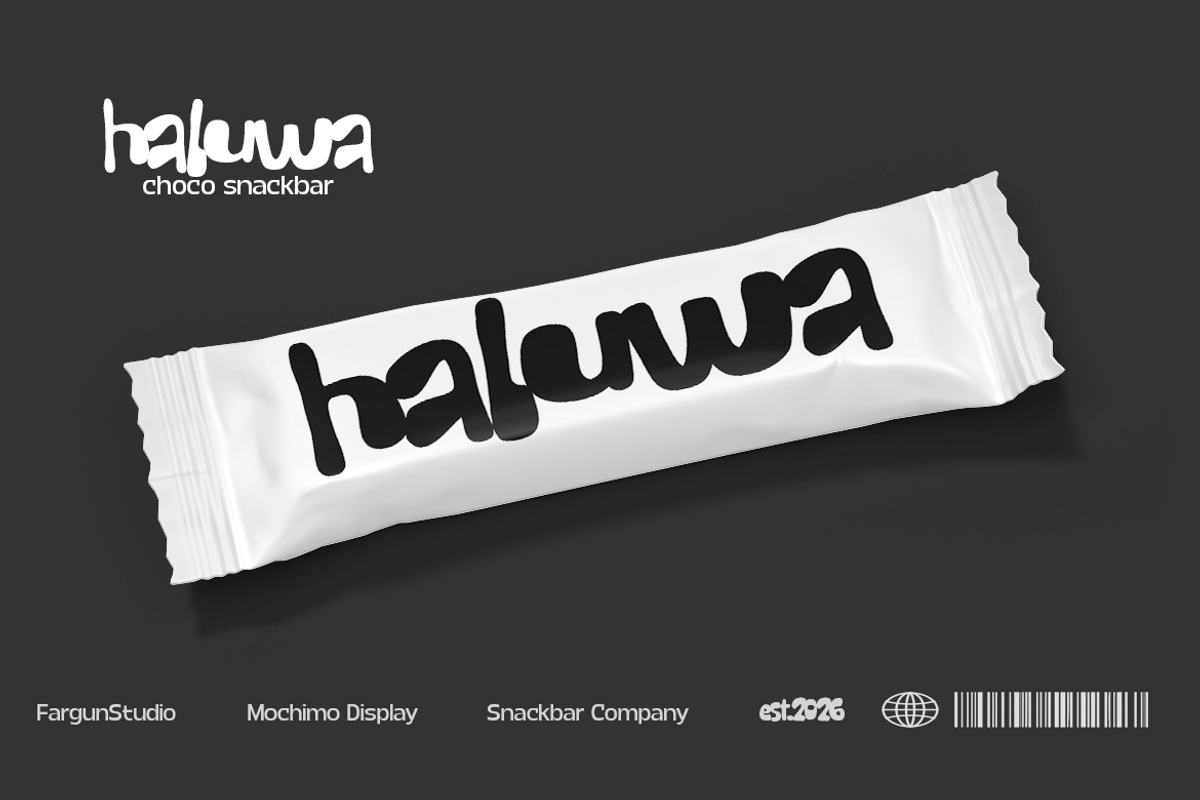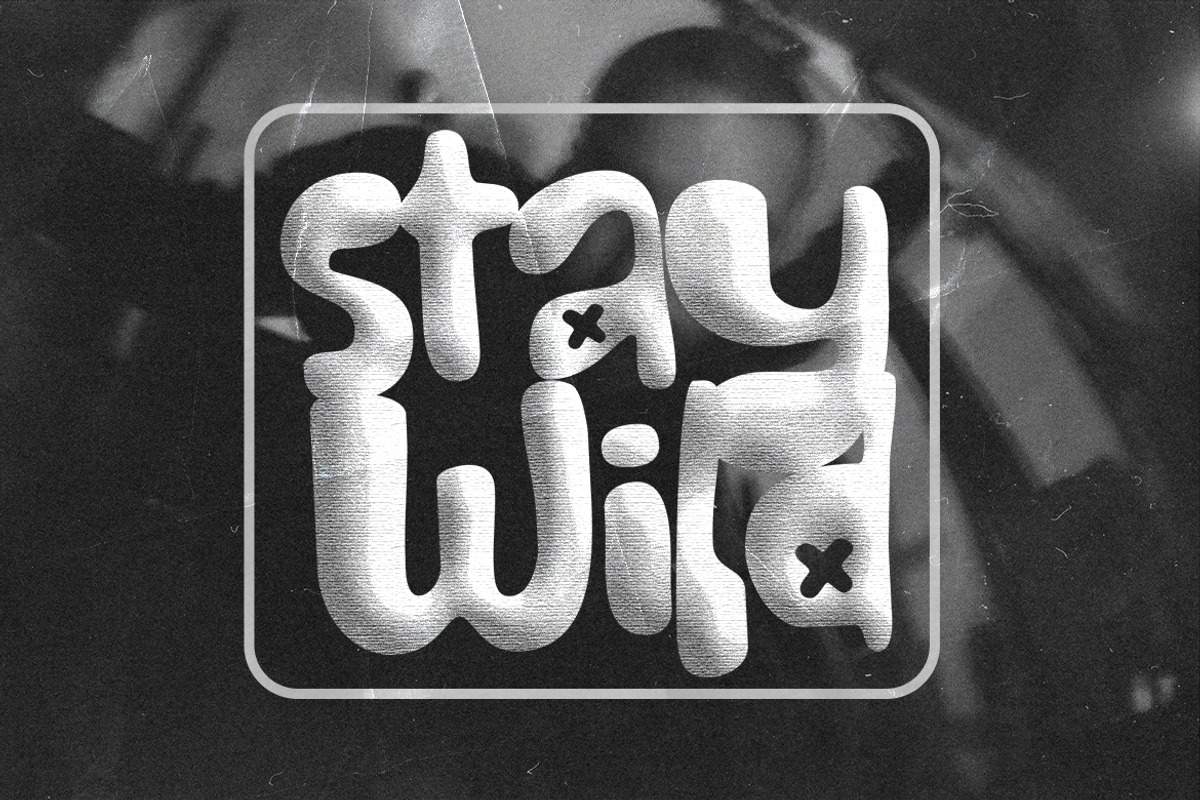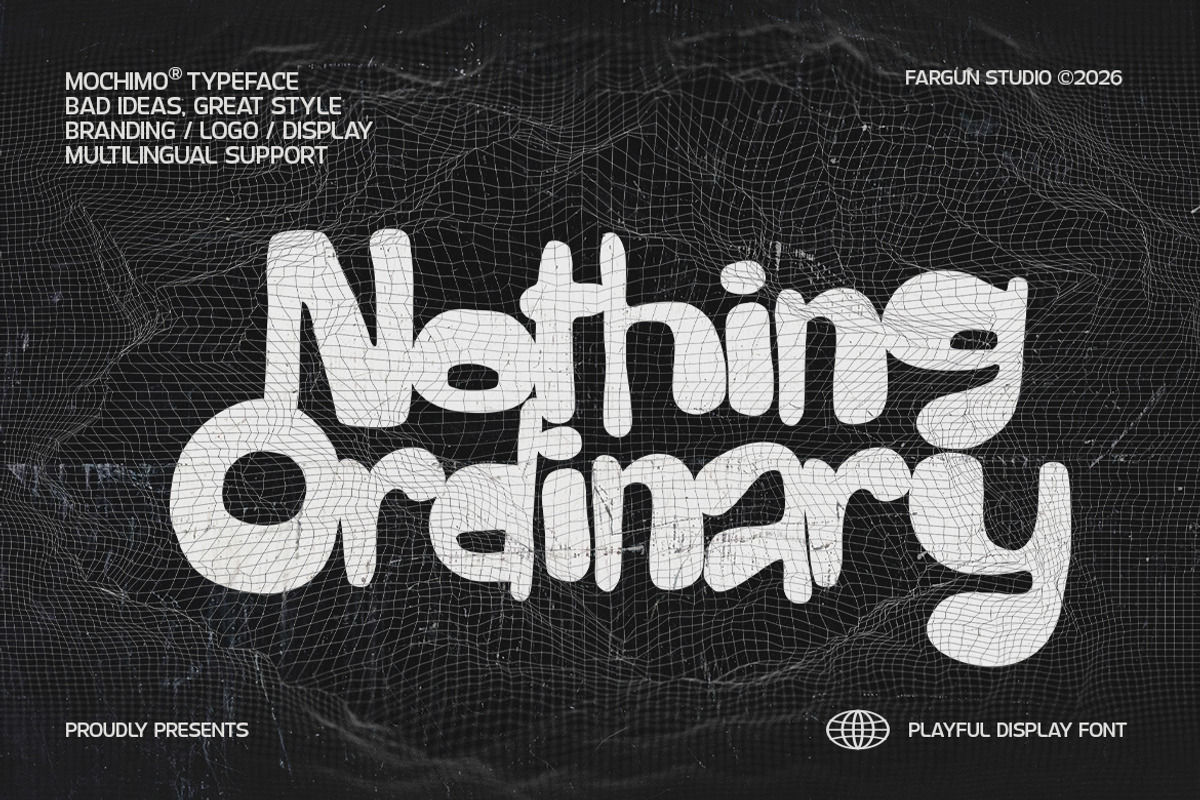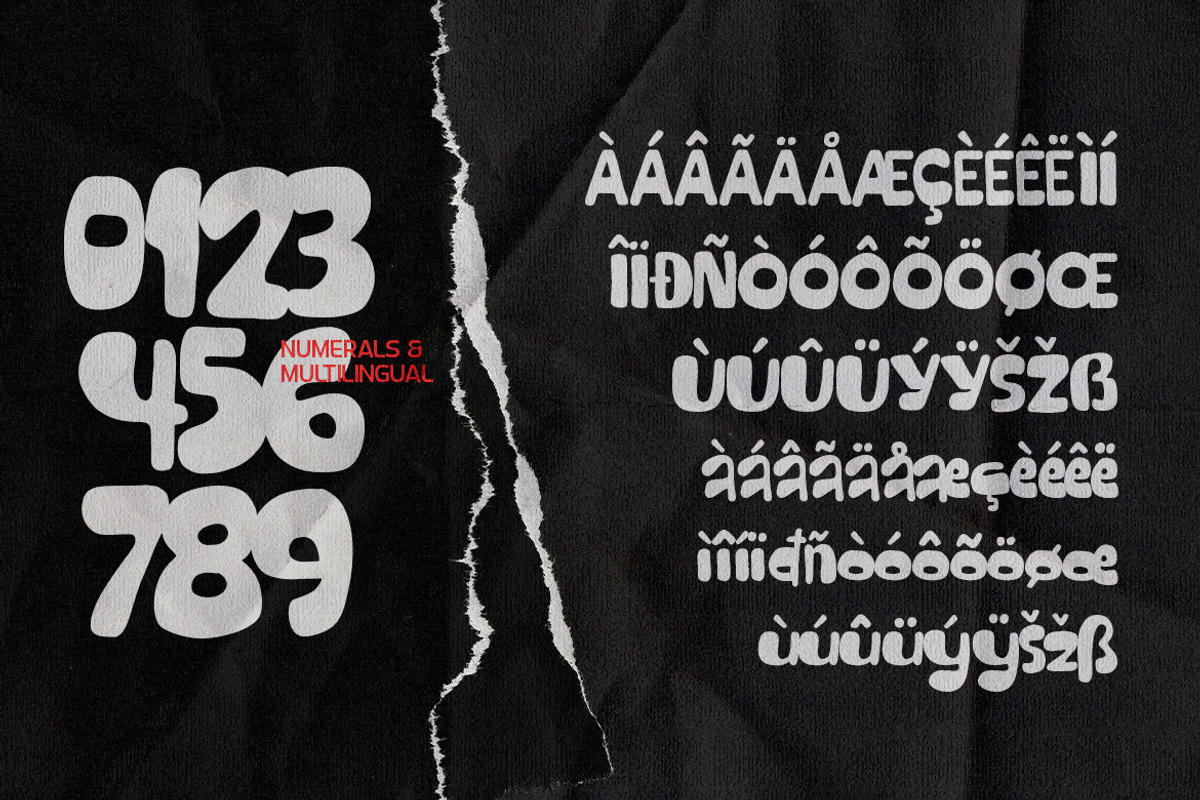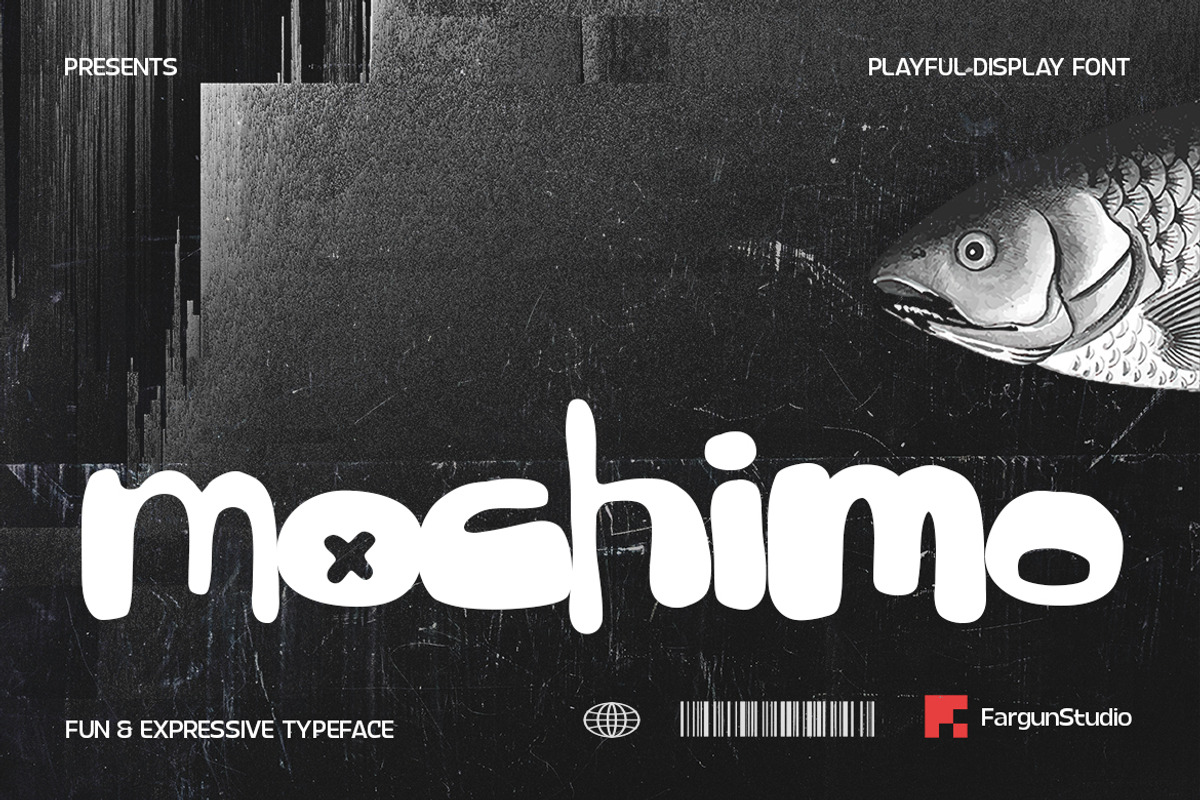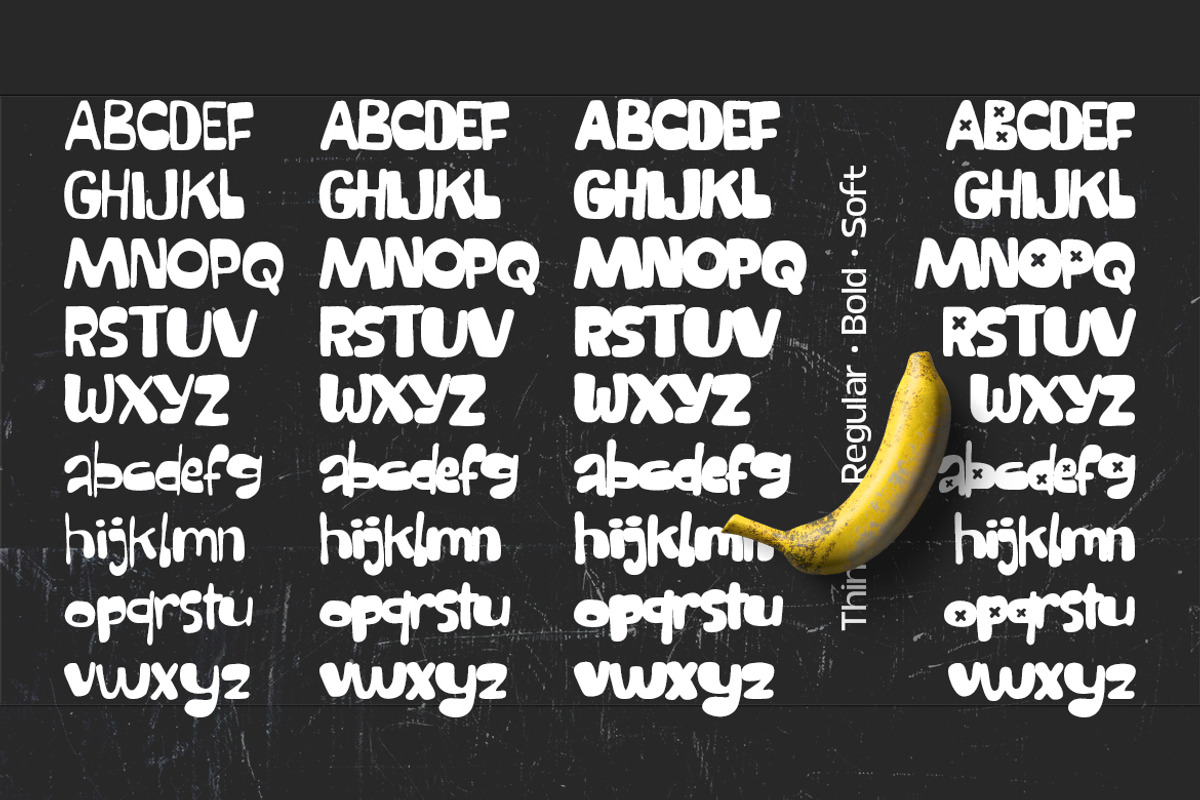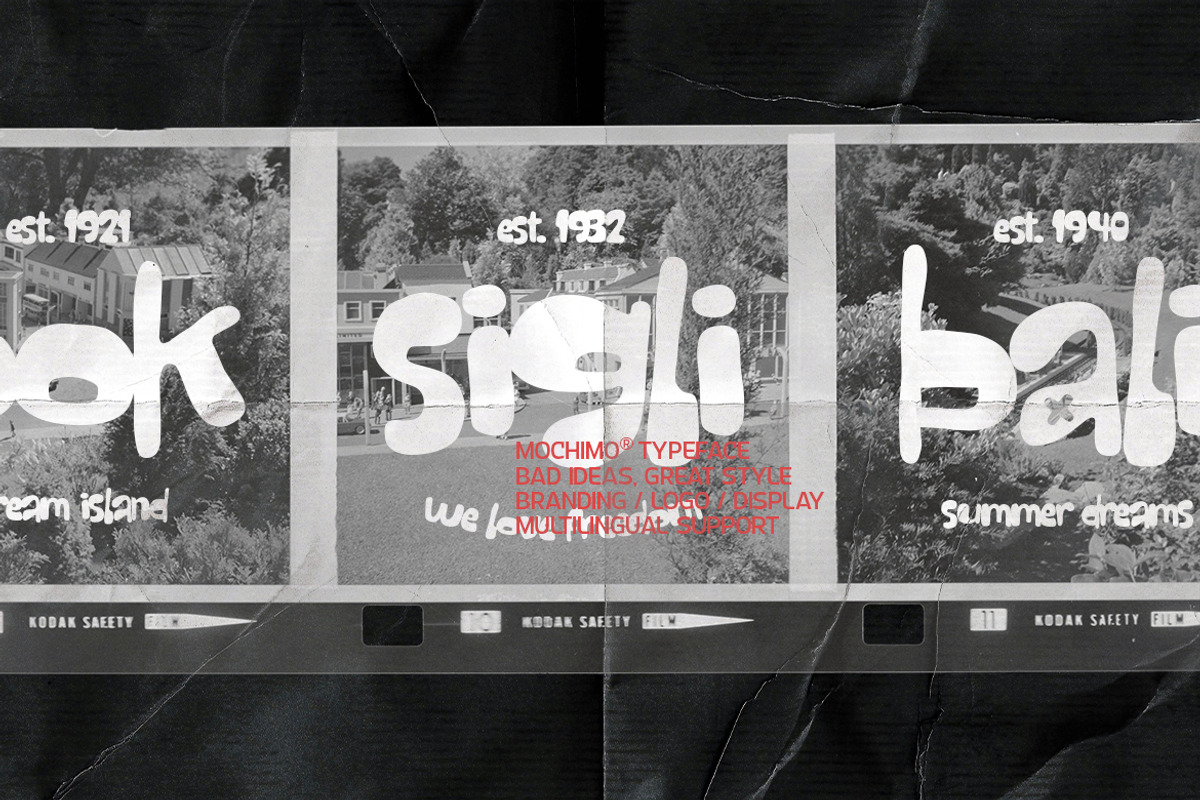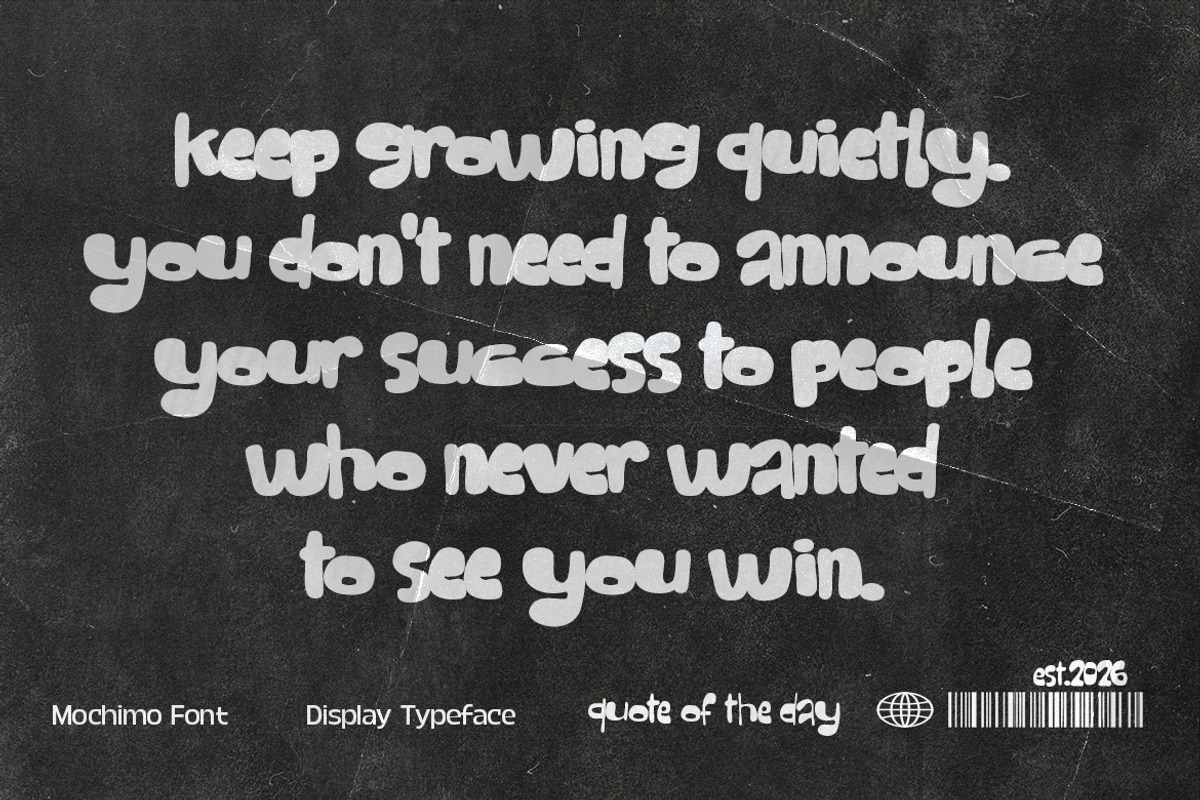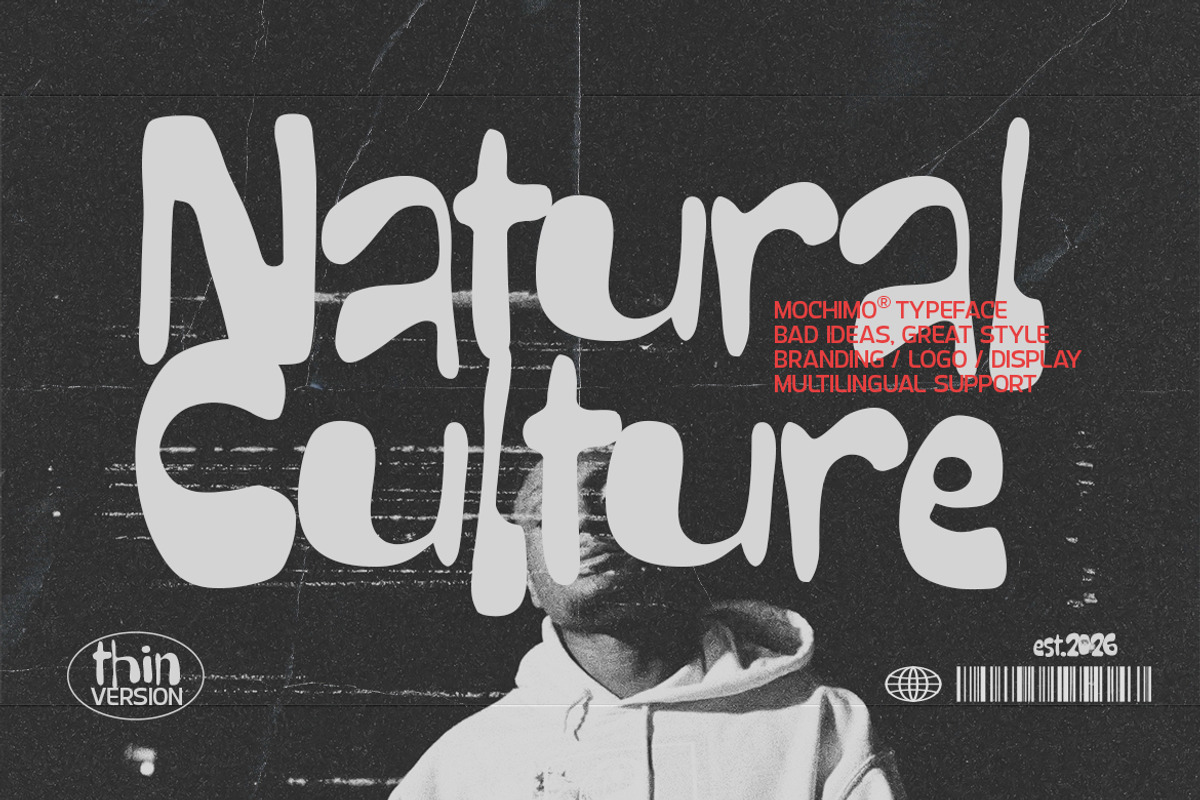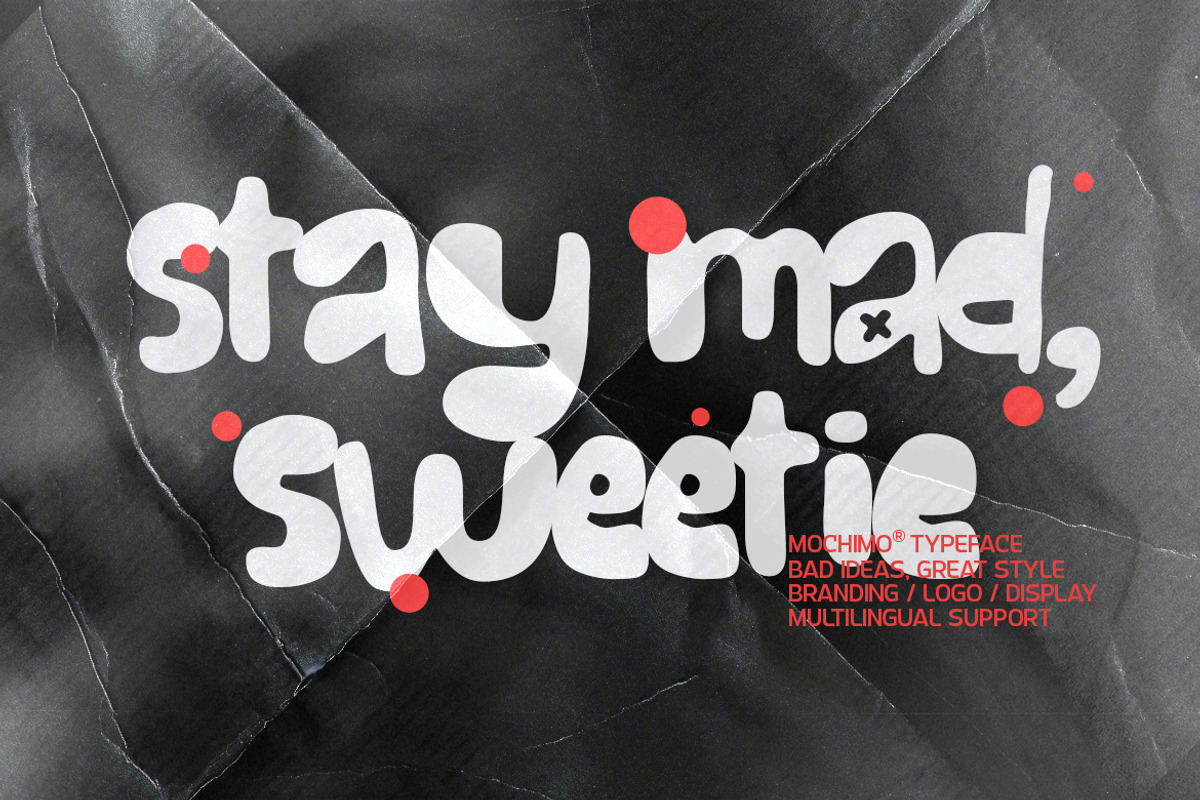
Mochimo
Mochimo is a playful and expressive display font designed to bring instant personality to any creative project. With its chunky shapes, soft rounded curves, and bold organic letterforms, Mochimo delivers a fun, friendly, and highly distinctive visual character.
Its exaggerated proportions and unconventional details create a strong handmade feel while maintaining excellent visual impact. Whether used for bold headlines or eye-catching branding, Mochimo brings energy, charm, and a touch of playful rebellion to every composition.
Perfect for logos, branding, packaging, posters, social media graphics, children's designs, editorial projects, merchandise, advertising, and any project that needs a bold and memorable typographic voice.
Mochimo is made to stand out, have fun, and leave a lasting impression.